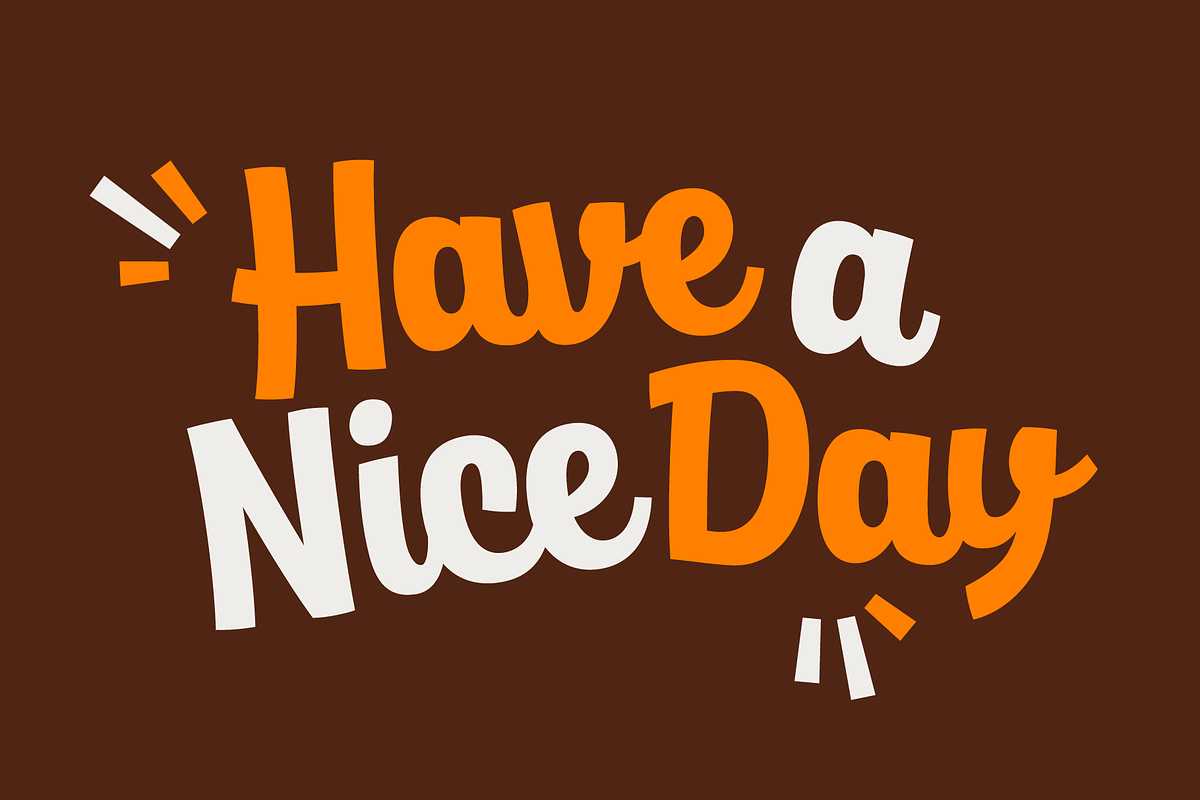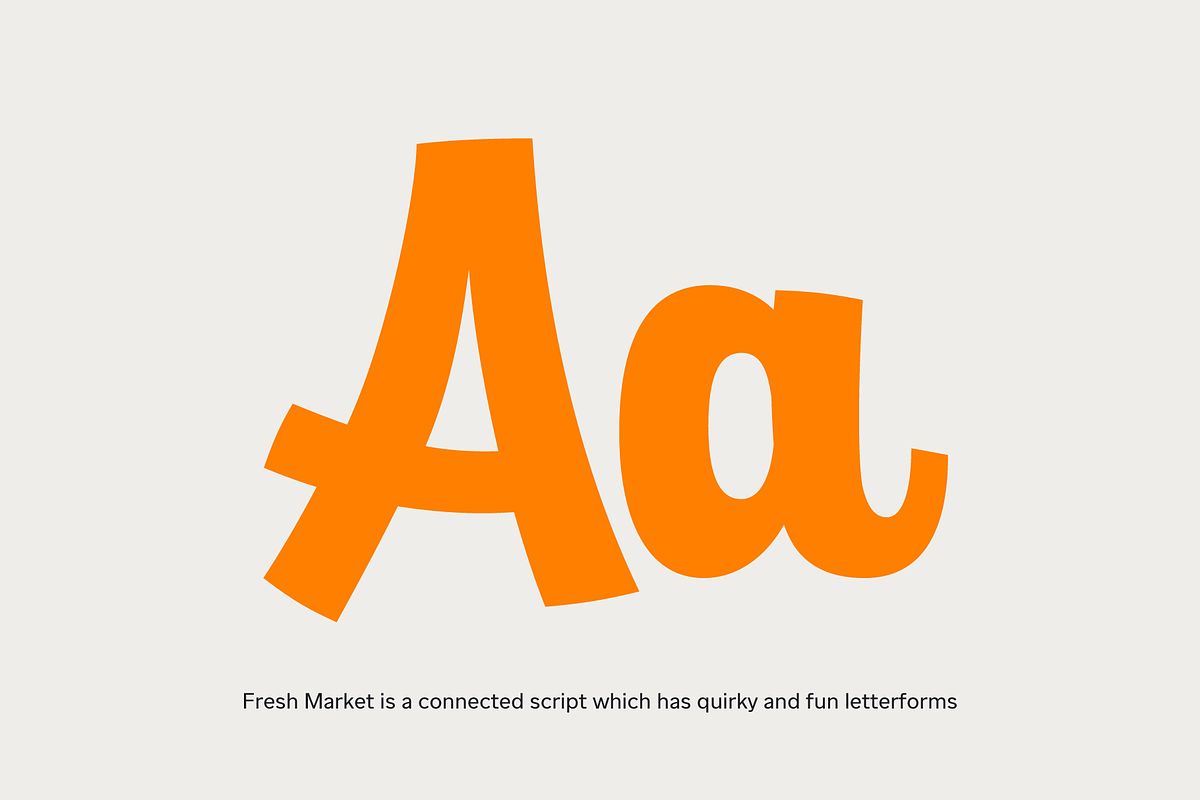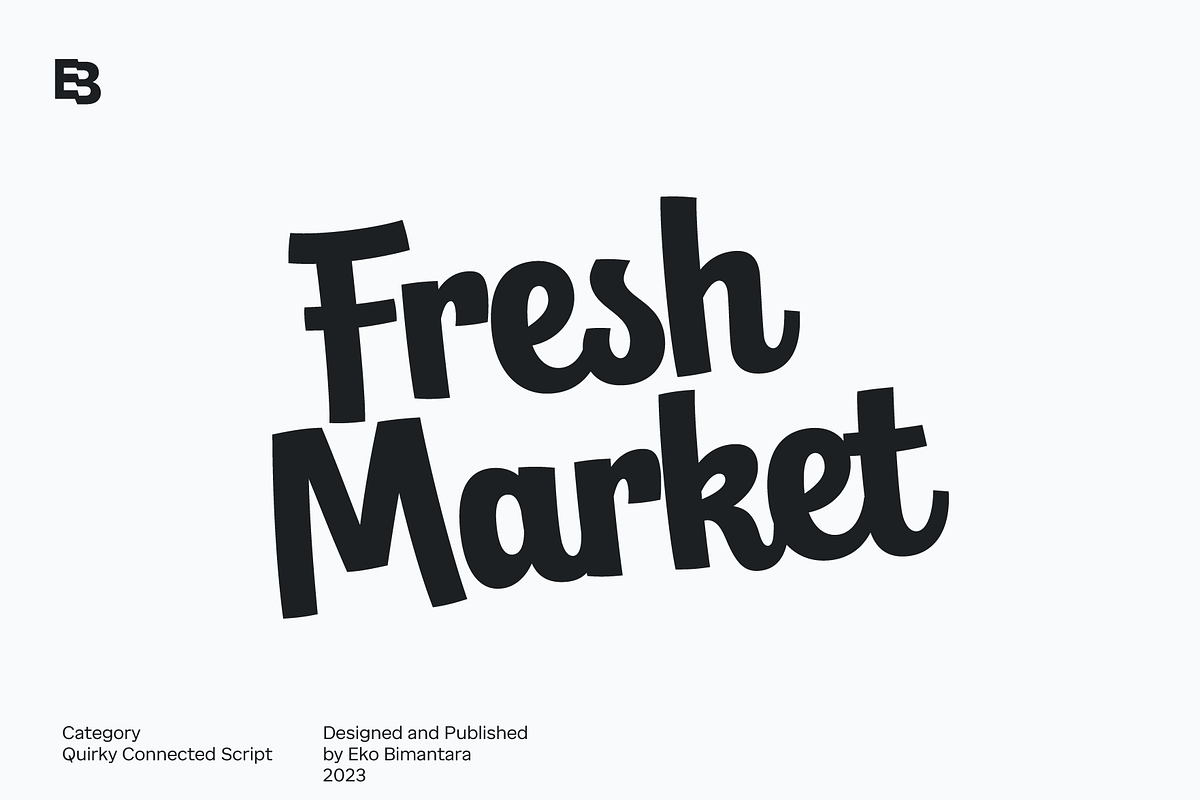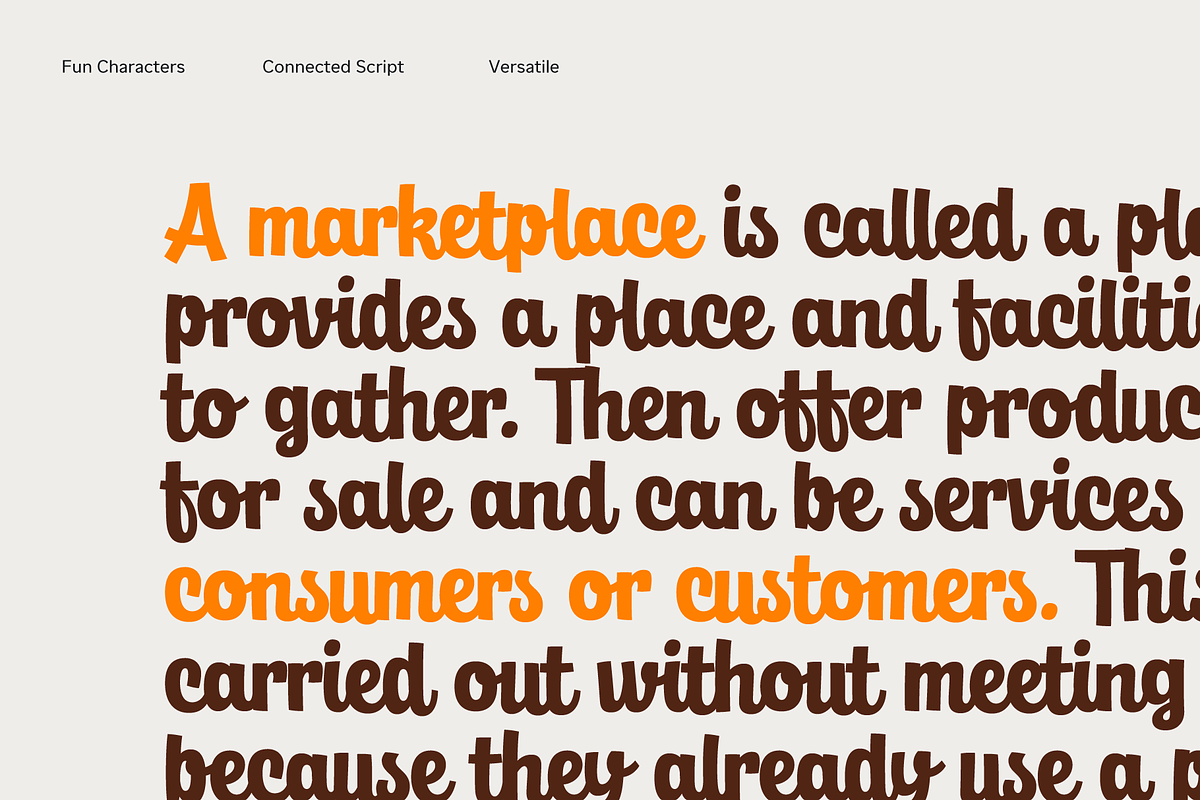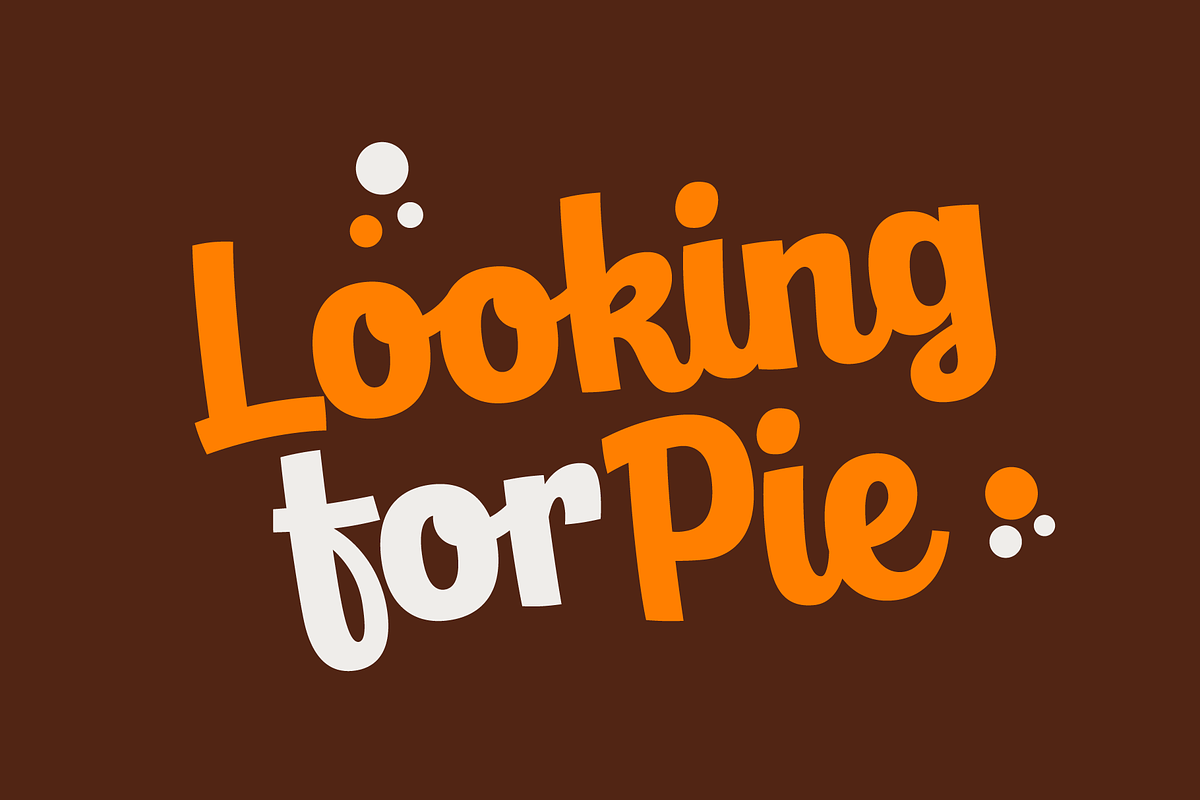
Fresh Market; Quirky Script
Fresh Market is a quirky and fun connected script font known for its bold and expressive style. This versatile typeface is an ideal choice for various design applications, including display designs, large-sized text, headers, logos, websites, brand identities, product packaging, and a wide range of layout designs. With its unique and fresh character, Fresh Market adds a playful touch to your creative projects, making it perfect for those seeking a distinctive and fun aesthetic.